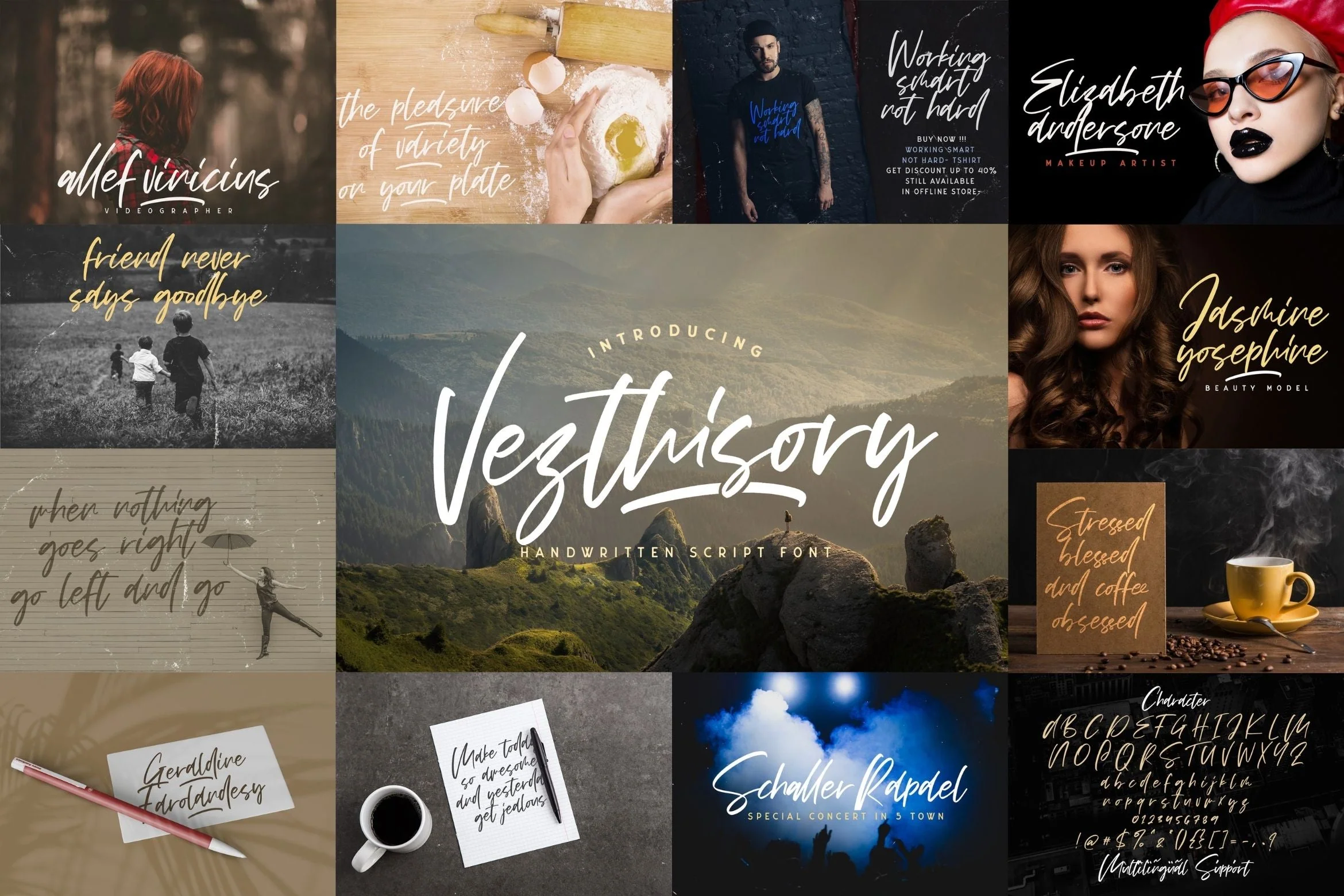
Calligraphy Font Bundle Vol 6
Calligraphy Font Bundle Vol 6 is a delicate, elegant and flowing calligraphy font. This font bundle contains 8 high quality handwritting calligraphy script font, it will look simply magical in a wide range of design projects, and also that will look particularly adept when used in logos, branding, packaging design, and much more. It has beautiful and well balanced characters and as a result, it matches a wide pool of designs. Add it to your most creative ideas and notice how it makes them come alive!
1. Shiny Aisyah
2. Vezthisory
3. Renitah
4. Basuhed
5. Bulgaria
6. Hysteria
7. Virgiluna
8. Rantting Tjinta